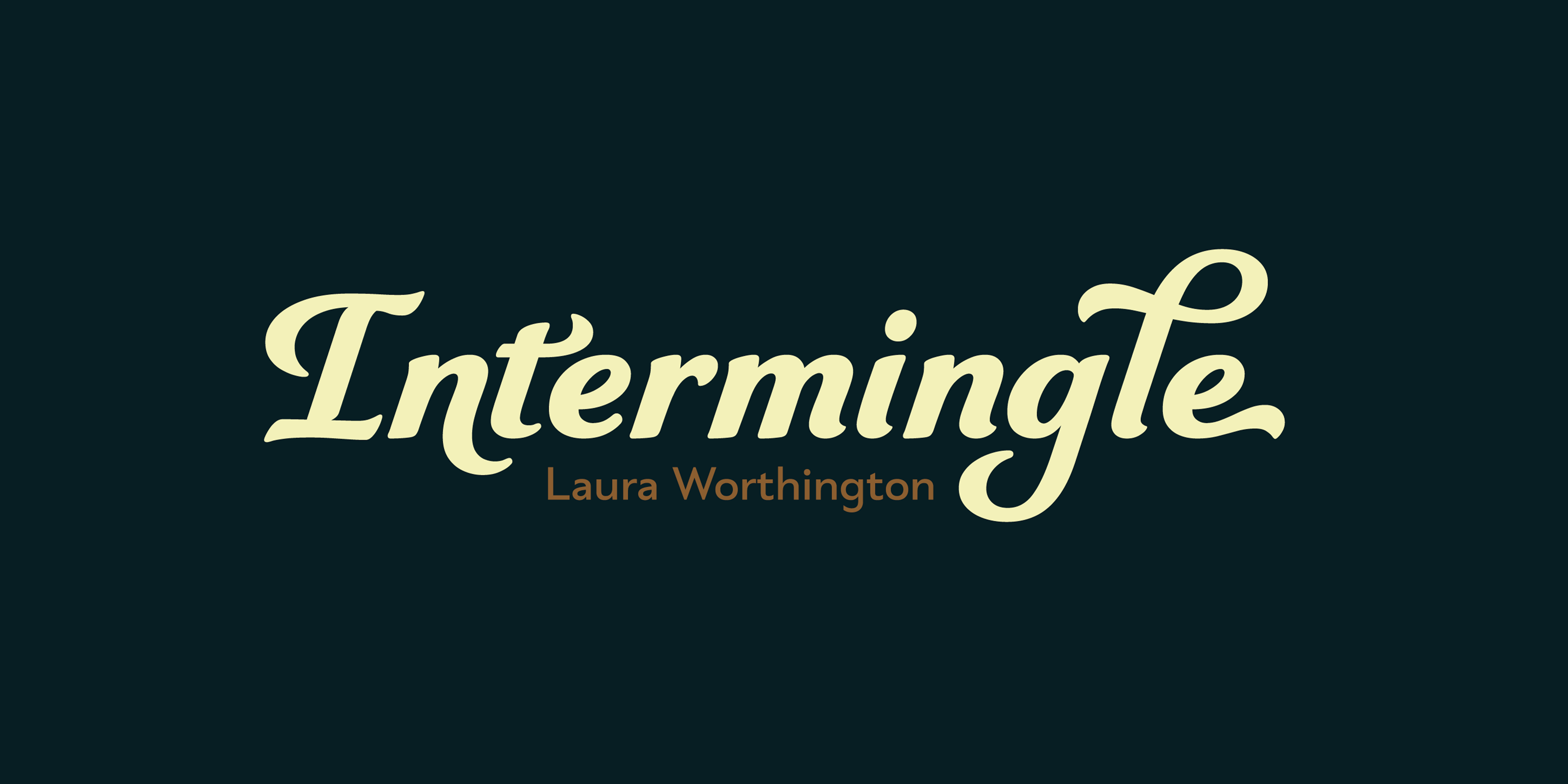
Intermingle
Designed by Laura Worthington, Intermingle is a brush display font family. This typeface has three styles and was published by Laura Worthington.
Intermingle is a script design intentionally pared down to the most essential forms. This gives designers a more versatile typeface with the right balance of practical subtlety and eye-catching swash. Laura Worthington was inspired by the bold simplicity of Funkydori and Ganache. Intermingle can be used with either family to create a richer typographic palette, too! Packaging, branding, magazines, and books—so many worthwhile opportunities! Available in 3 weights.
Foundry Laura Worthington
Style Brush Display
Designer Laura Worthington